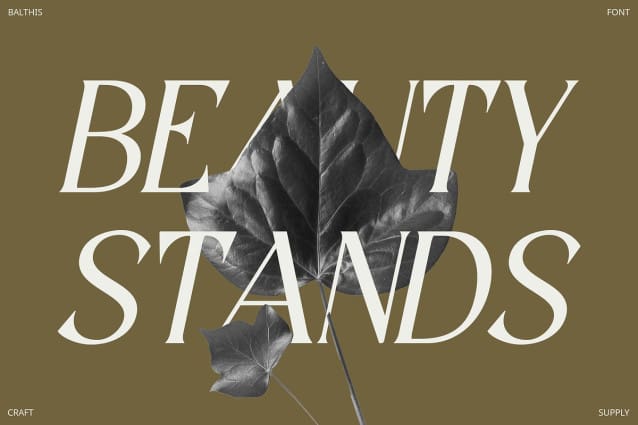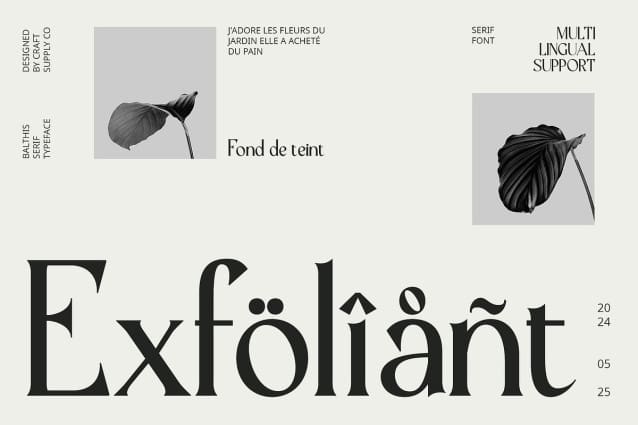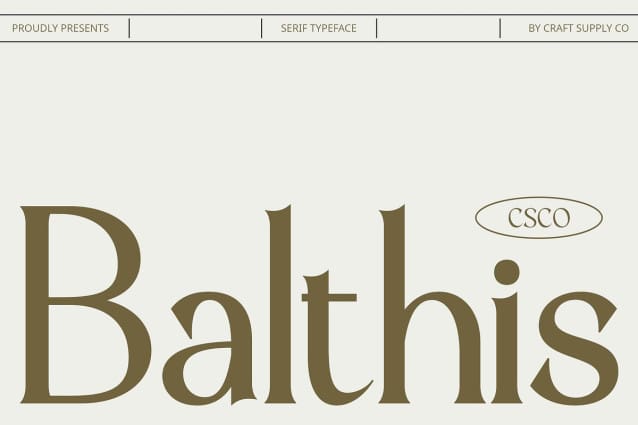
Balthis Font
Balthis Font is an elegant serif font designed for professional use. Its modern style adds a contemporary flair to any project, while its serif details ensure a classic and timeless look.
With its versatile design, Balthis Font is suitable for a variety of uses, including headlines, body text, and branding. Its elegant style adds a touch of sophistication to any project, ensuring that your work stands out from the crowd.
Balthis Font prioritizes readability, ensuring that your message is clear and easy to understand. Whether used in print or digital media, this font maintains legibility even at small sizes.
Whether you’re designing a business card, a website, or a presentation, Balthis Font is the perfect choice for projects that require an elegant and modern aesthetic. Its timeless design ensures that your work will always look stylish and up-to-date.